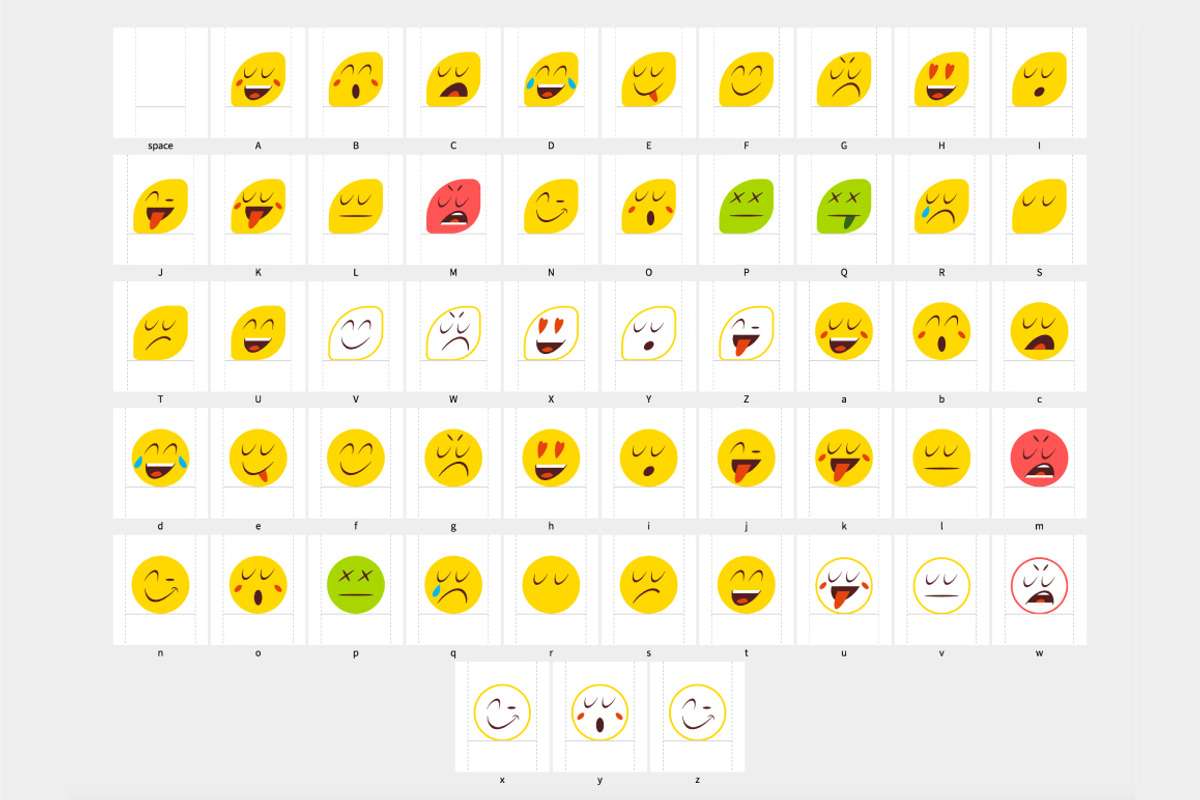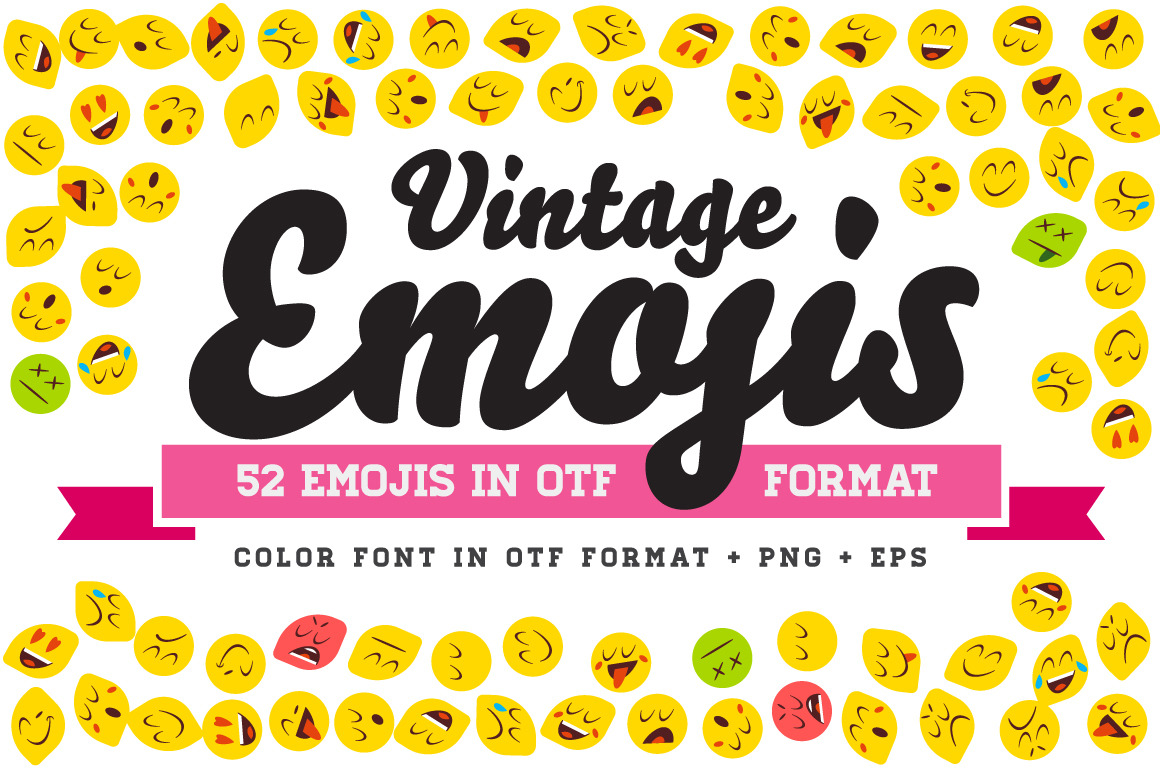
Vintage Emojis OTF Color Font
This pack contains 52 Color Fonts of Emojis in Vintage Style in .OTF file format (Adobe Illustrator 2018). Also pack contains EPS and PNG files of each icon (If you don't have Adobe Illustrator or software for reading color fonts).
- Vintage Emojis font with 52 Characters-Emojis.